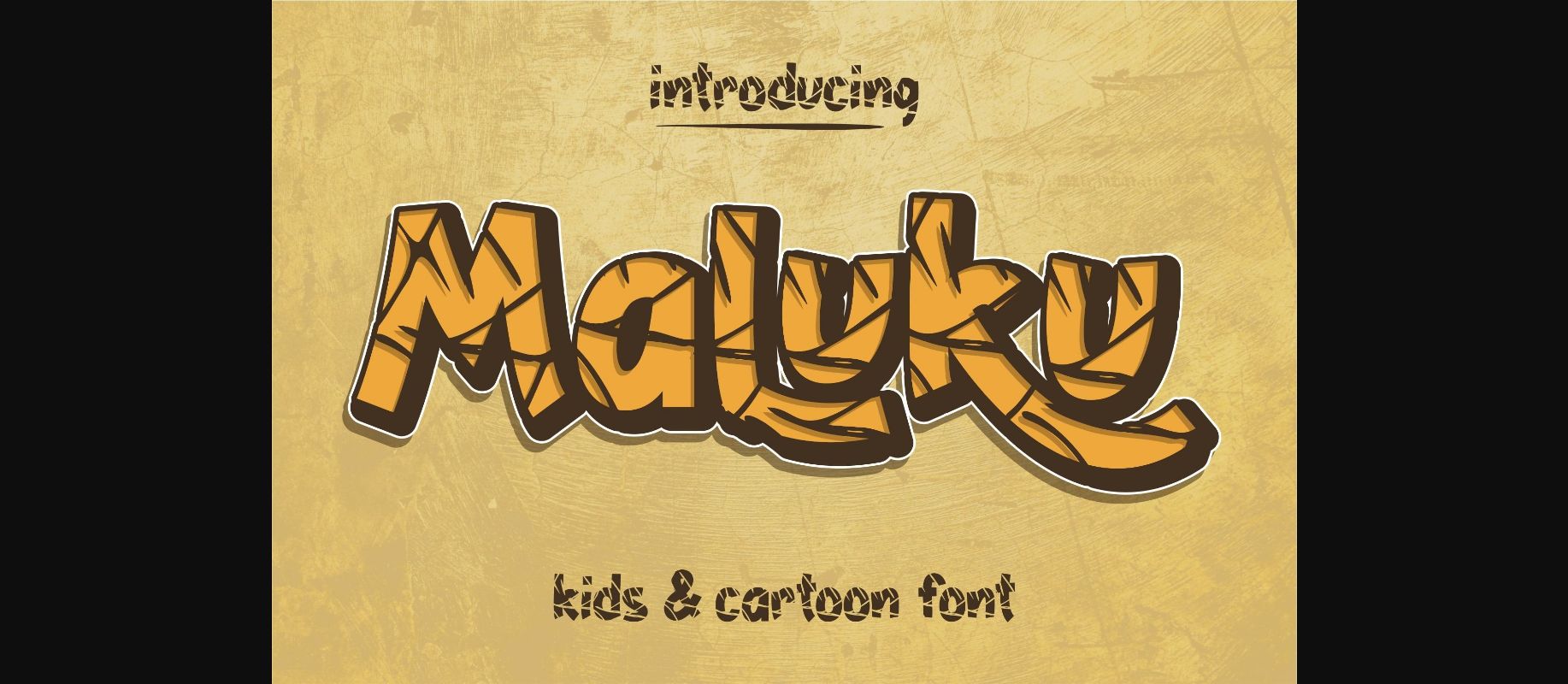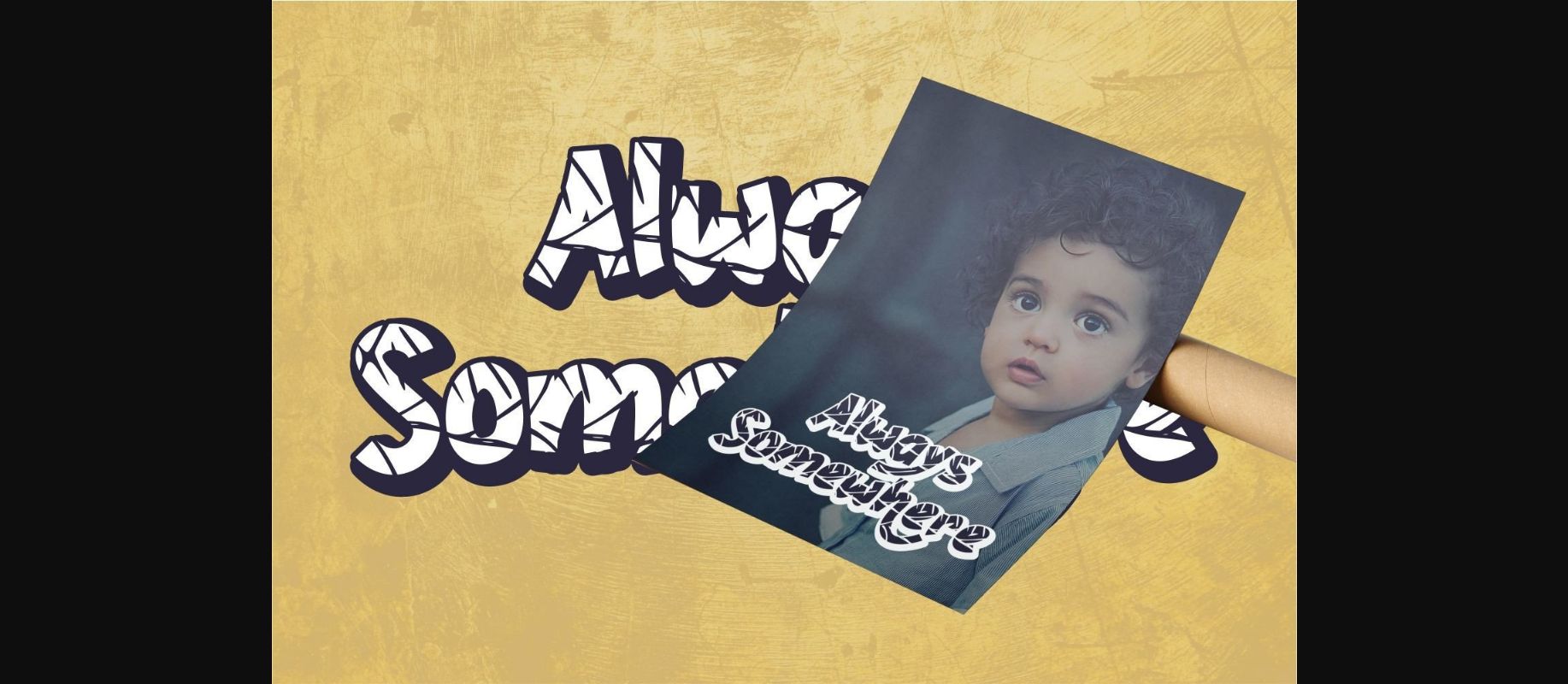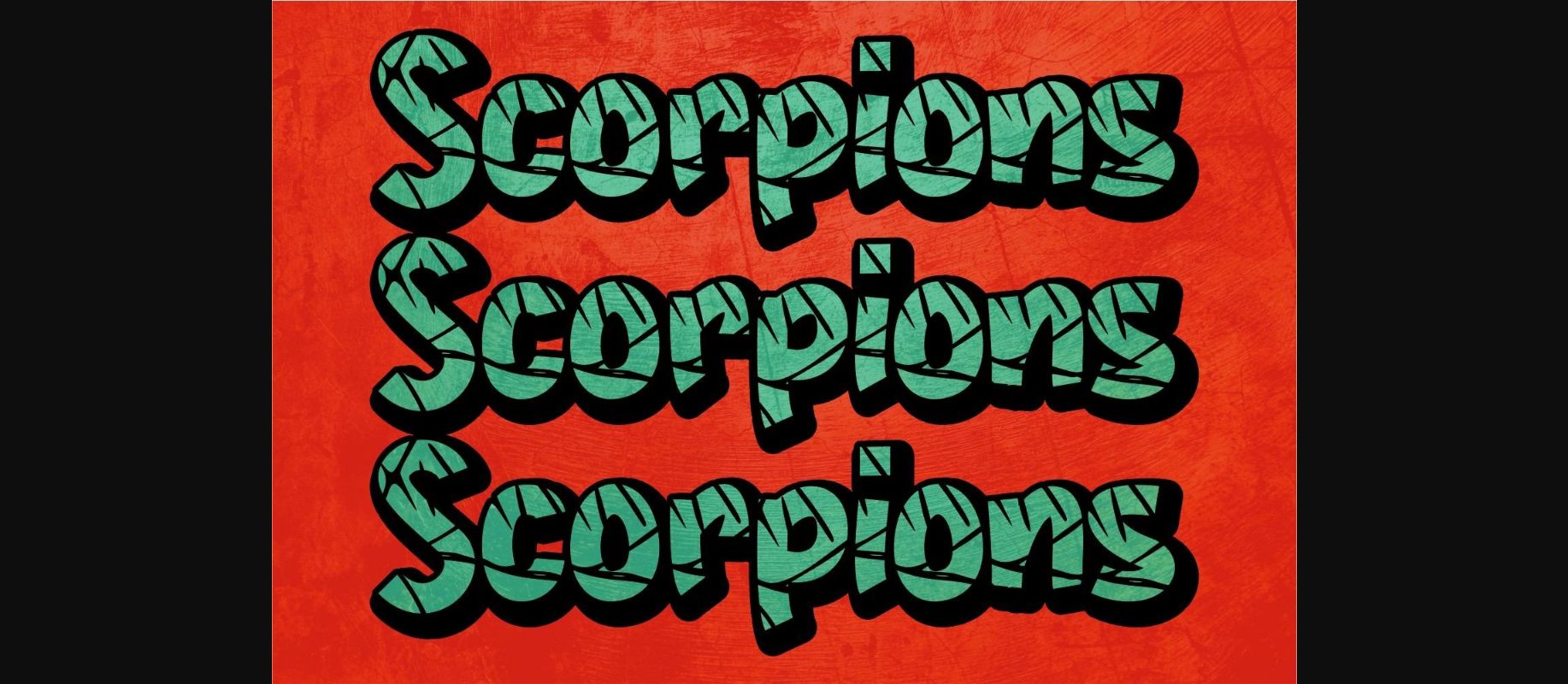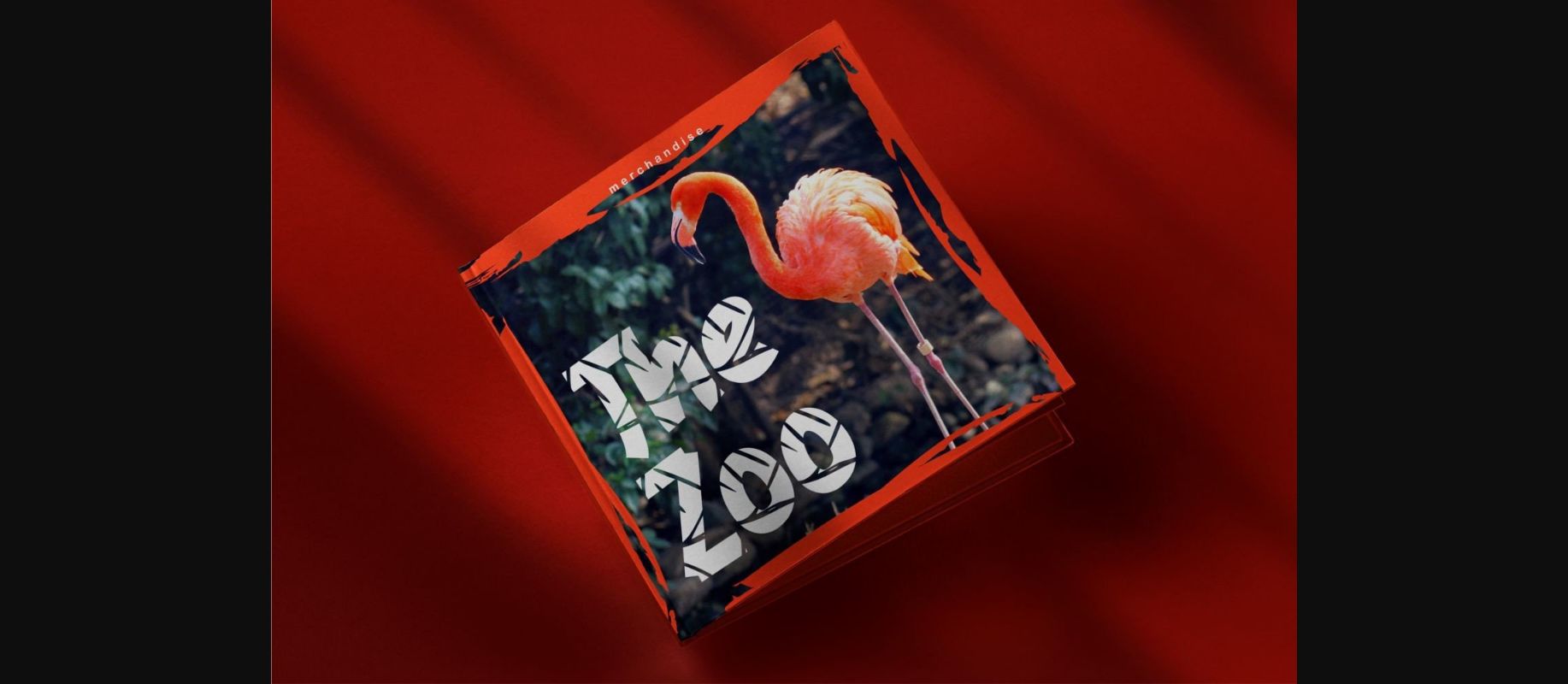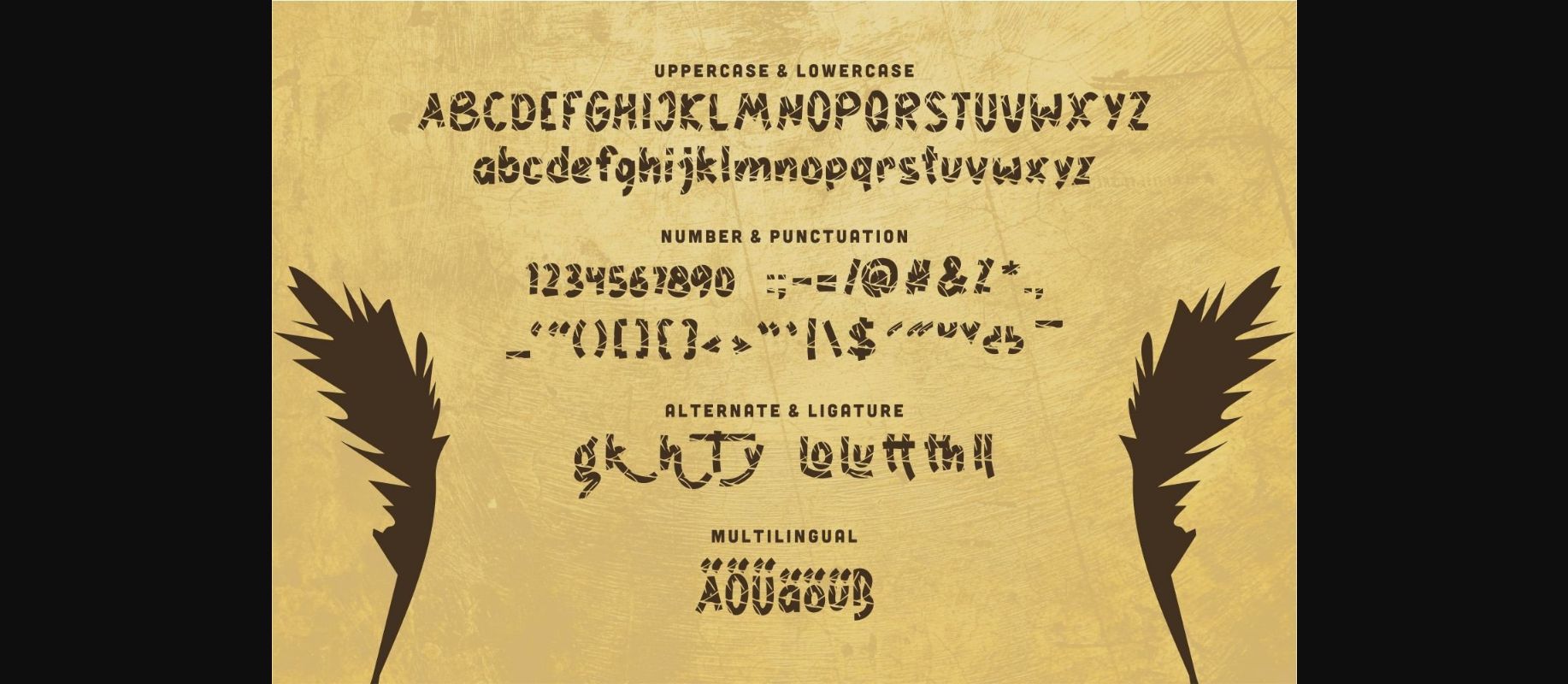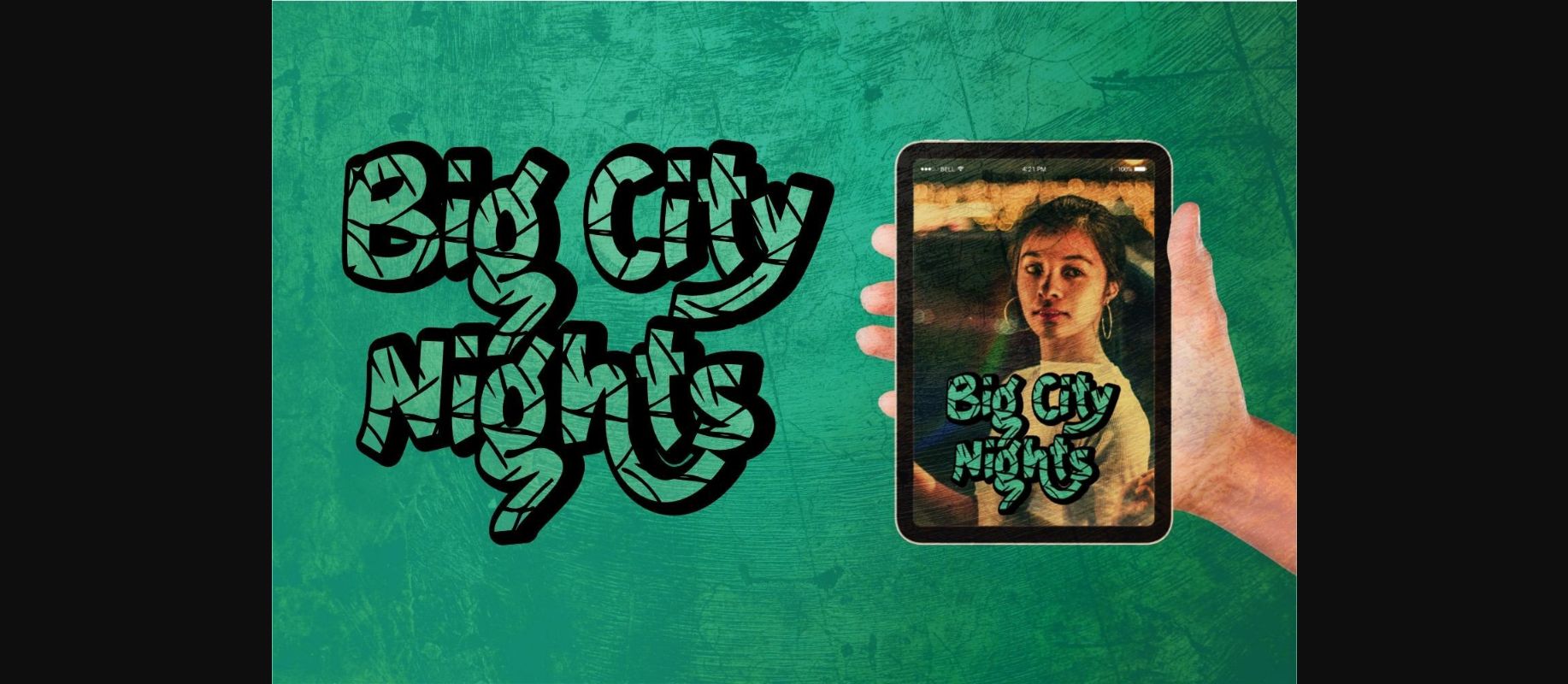
Maluku Font
About Maluku Font
Maluku is a fun and friendly decorative font. Full of personality and charm, this font is perfect for kids-related designs or anything that needs a joyful touch.